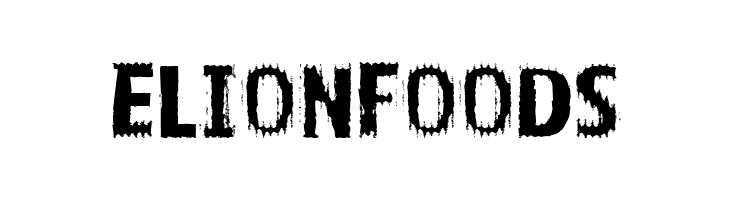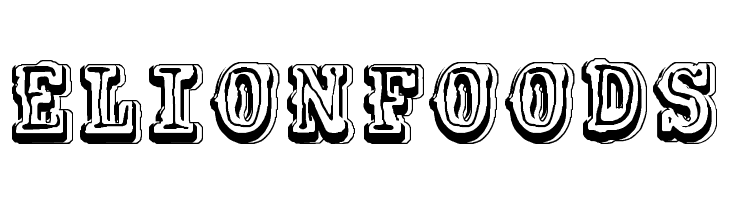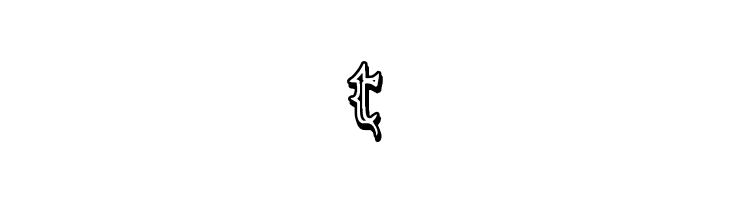
• Volkswagen
A collection of Volkswagen vehicle silhouettes representing different models.
• VTKS Bandana
A bold, decorative font with intricate bandana-inspired patterns.
• Vtks Black Label
A bold, decorative font with vintage, ornate detailing.
• VTKS Black Label Normal
A bold, decorative font with gothic, thorn-like embellishments.
• VTKS Black Label Normal Filete
A bold, decorative font with intricate details and a vintage flair.
• VTKS BRIGHT
A bold, distressed font with a weathered texture for impactful designs.
• VTKS COLAGEM
A bold, decorative font with a vintage, three-dimensional style.
• vtks Deja Vu
A decorative font with bold letters and intricate floral embellishments.
• VTKS EMBROIDERY
A textured, embroidery-inspired font with a bold, handcrafted look.
• vtks fresh
A bold, distressed font with a grunge texture and rugged appearance.